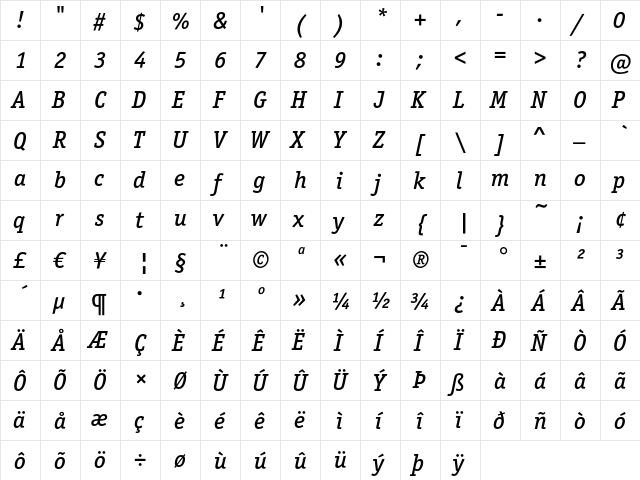
OfficinaSerITC Regular
Design Context for OfficinaSerITC Typeface
OfficinaSerITC offers clean, dependable letterforms without strong stylistic allegiance, making it a practical choice for designers who need flexibility.
Pro Tip: Use OfficinaSerITC in both headline and body roles to test its range before committing to a single application.